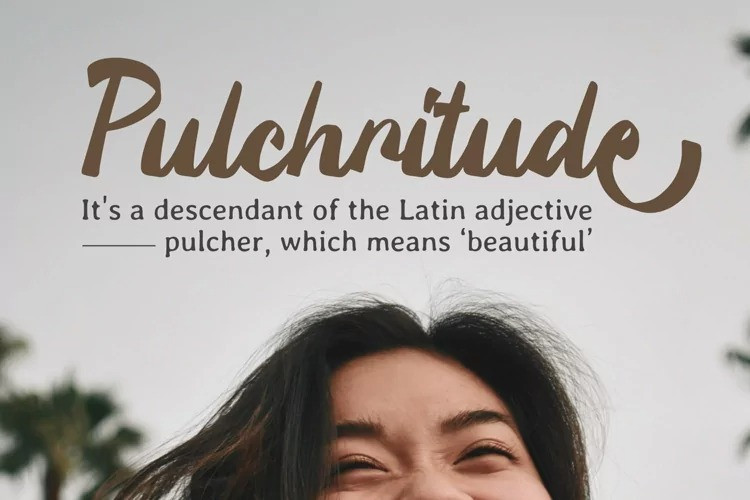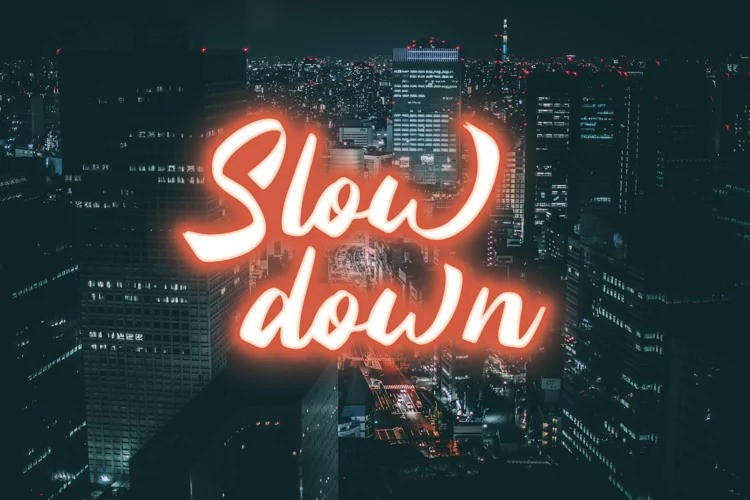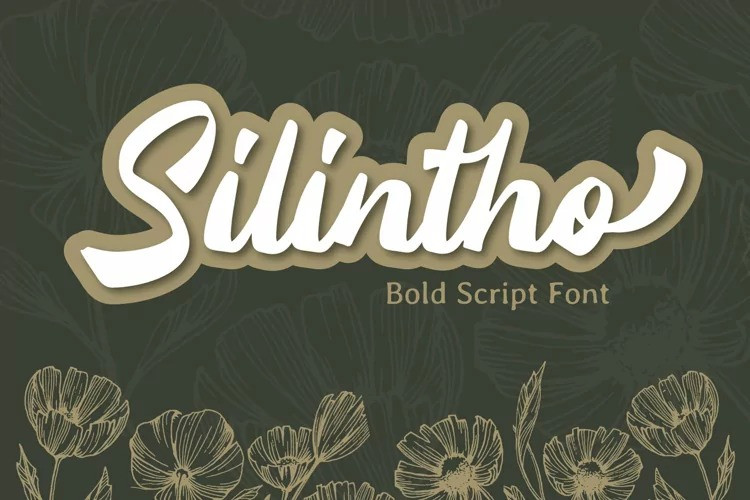
Silintho Brush Font
It’s a bold script typeface, with its fine strokes making this font look very modern, stylish and luxurious. Perfect for any business logo, brand and use it to create spectacular designs!
Silintho is perfect for branding, logo, invitation, stationery, social media post, product packaging, merchandise, blog design, game titles, cute style design, Book/Cover Title and more.